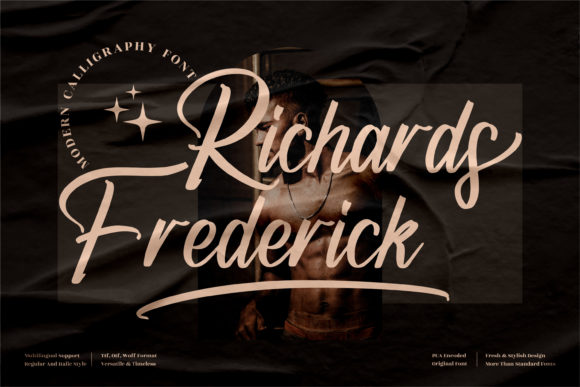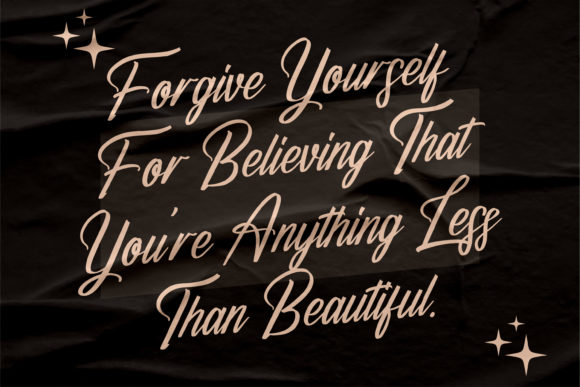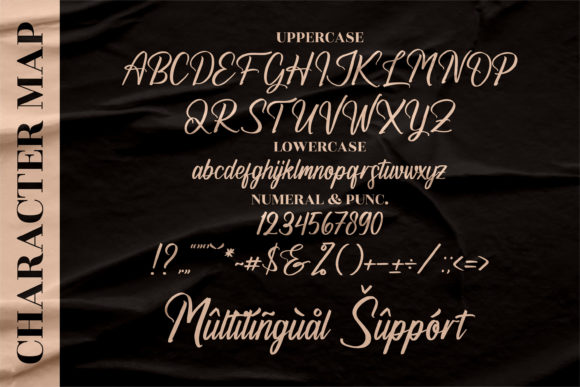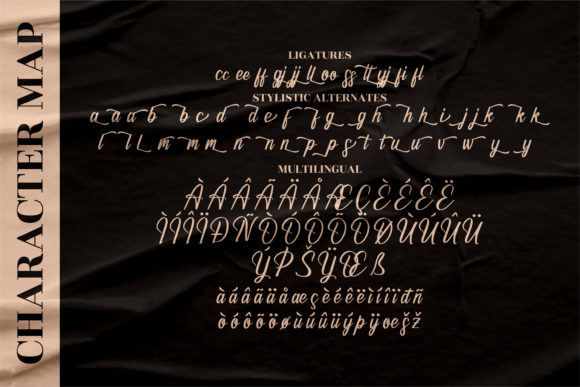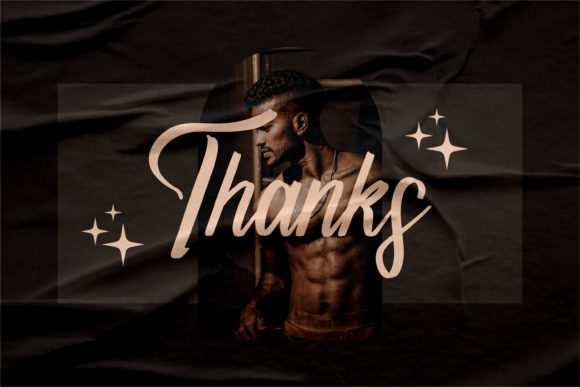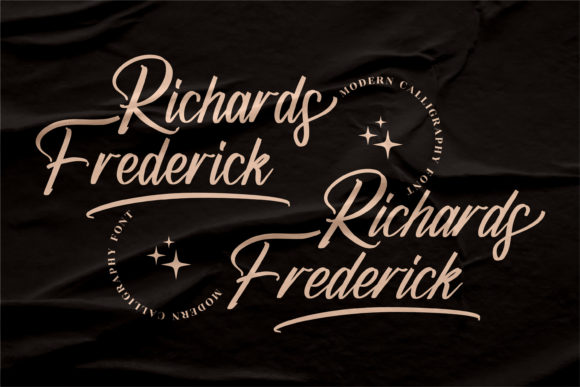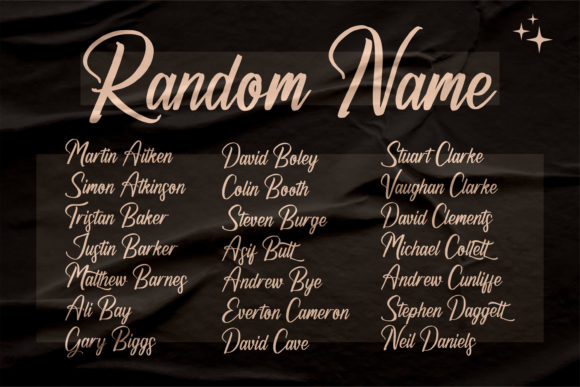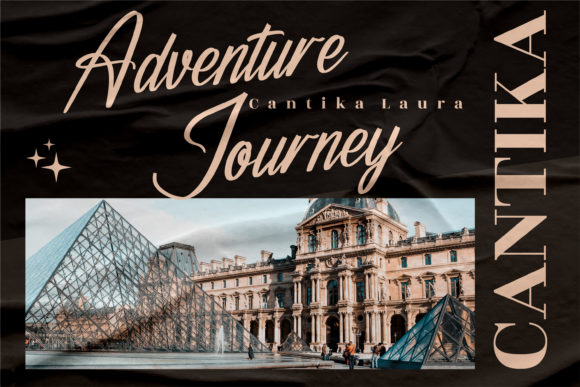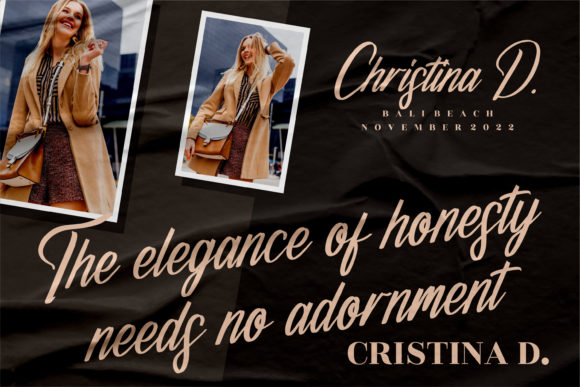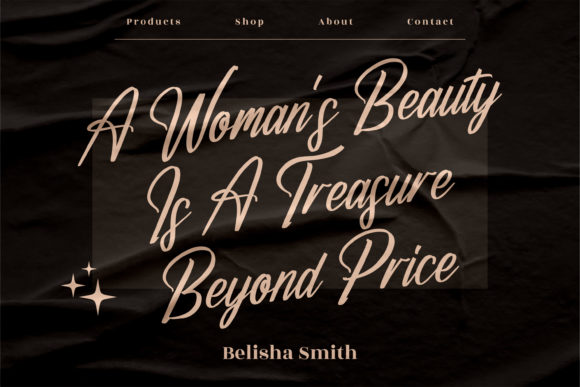
Richards Frederick Font
About Richards Frederick Font
Richards Frederick is a lovely script font featuring charming, playful characters that seem to dance along the baseline. This font is PUA encoded which means you can access all of the amazing glyphs and ligatures with ease!